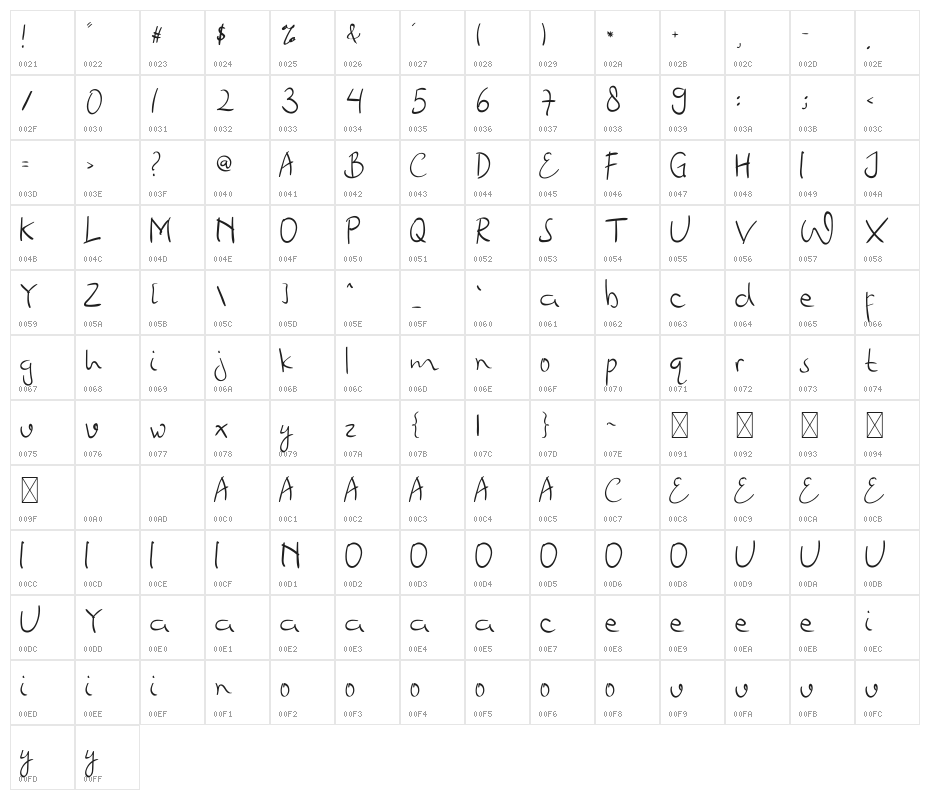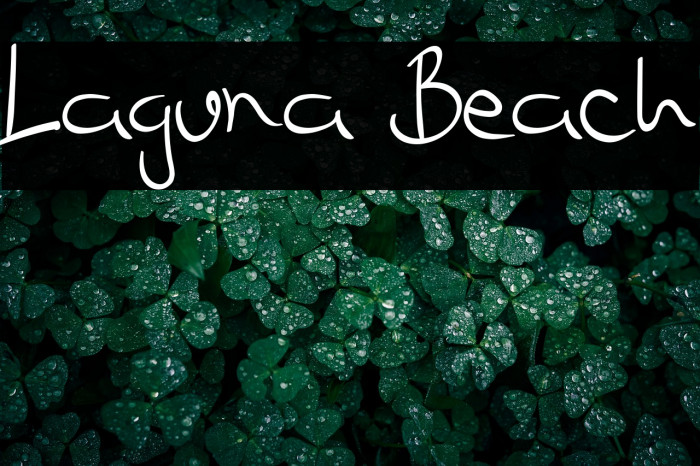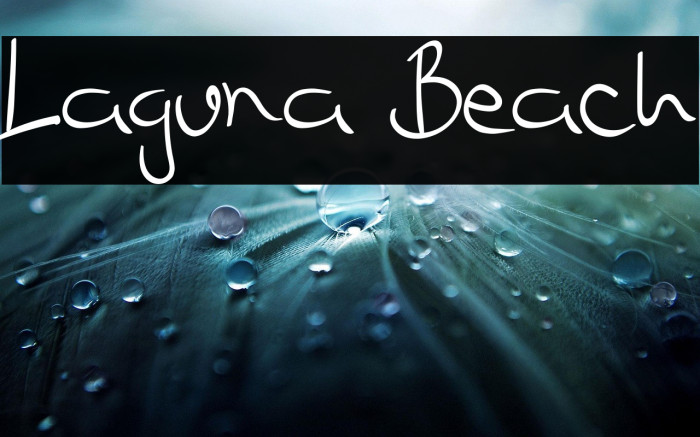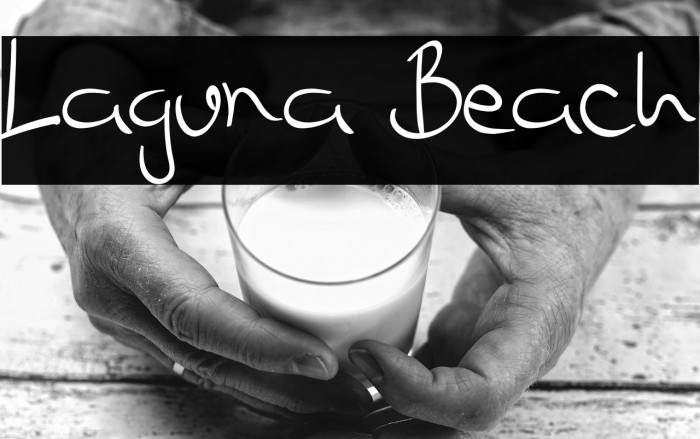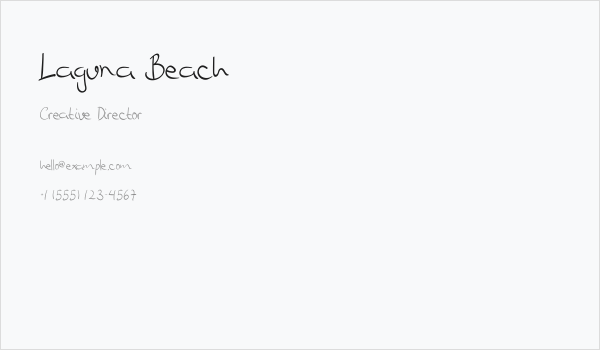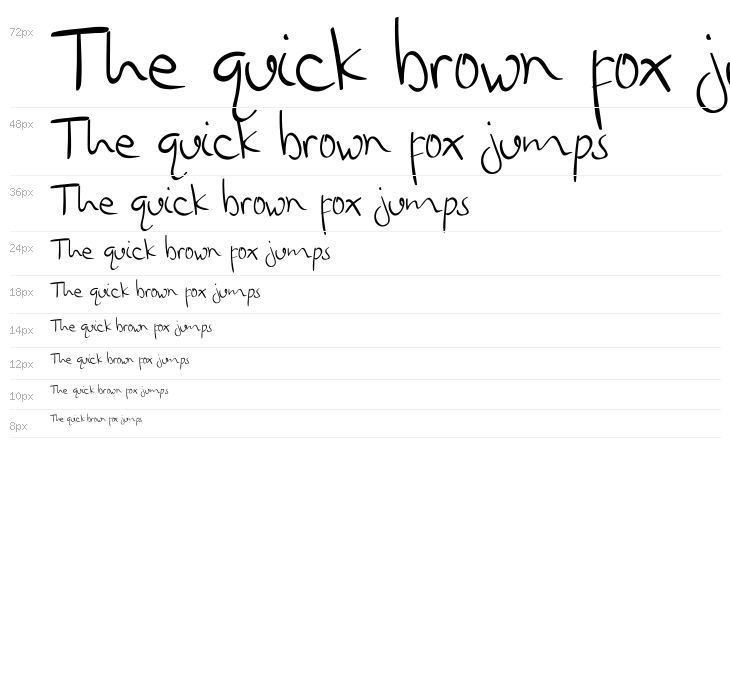
Laguna Beach Font
Laguna Beach Description
This font exudes a casual and playful handwritten style, characterized by its fluid and organic strokes. The letters vary in height and angle, giving it a dynamic and lively appearance. The uppercase letters are bold and slightly irregular, while the lowercase letters maintain a consistent flow with a touch of whimsy. The numerals are rounded and maintain the playful aesthetic, making them easily legible. Special characters are creatively integrated, adding to the font's overall charm. This font is perfect for projects that require a personal and informal touch, such as greeting cards, invitations, or creative branding.
| Proposed Projects | Ideal for greeting cards, invitations, creative branding, and informal designs. |